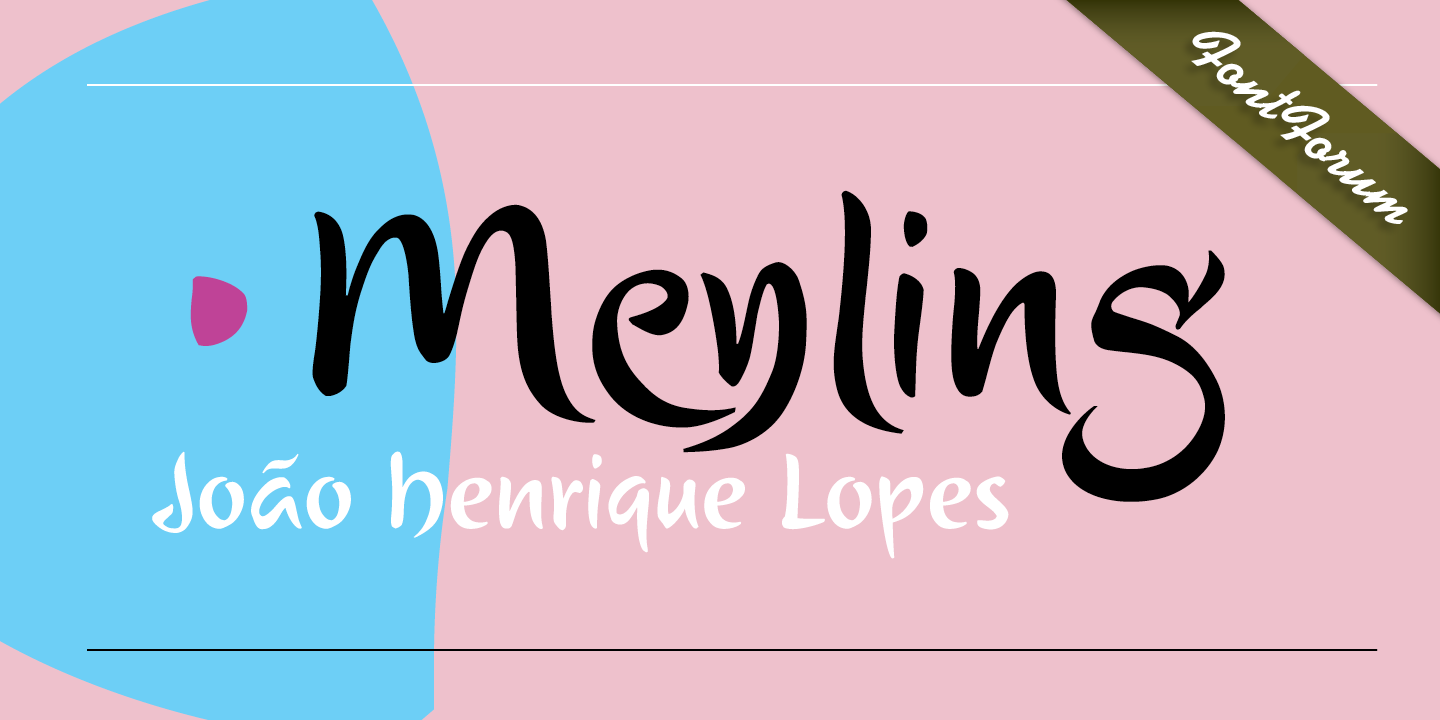
Meyling Font is perfect for a wide range of design applications including delicate branding projects, feminine beauty salon signage, romantic wedding invitations, boutique fashion labels, artisanal jewelry packaging, elegant greeting cards, sophisticated lifestyle magazines, refined cosmetic branding, graceful calligraphy workshops, and enchanting editorial layouts.
What makes Meyling Font exciting is its ethereal beauty and graceful femininity that perfectly captures the delicate charm and sophisticated elegance of contemporary feminine design sensibilities. This enchanting typeface brings a sense of gentle sophistication and artistic refinement to any project with its beautifully flowing letterforms that showcase organic curves and harmonious proportions. The font's soft character shapes and lyrical flow create an atmosphere of romantic elegance and feminine grace that resonates with audiences seeking beauty, authenticity, and personal expression, making it an ideal choice for brands emphasizing femininity, artisanal quality, and aesthetic sophistication.
The Meyling Font family includes multiple weights and styles designed to accommodate various elegant and feminine design requirements. The collection typically features regular, bold, light, and decorative variations, each maintaining the font's signature graceful aesthetic while providing comprehensive design flexibility. Additional ornamental flourishes and feminine ornaments enhance the family's creative potential for beauty-focused design projects.
Professional designers appreciate Meyling Font's exceptional grace and comprehensive character support. The font includes extensive punctuation marks, numerical figures, decorative alternates, and international language capabilities, making it perfect for global beauty brands and international feminine lifestyle projects. Its elegantly optimized spacing and kerning ensure professional results in branding, packaging, and promotional applications.
The increasing popularity of Meyling Font in the design community reflects its ability to enhance brand femininity and create memorable visual experiences that celebrate contemporary feminine elegance and artistic expression. Whether used for beauty industry branding, fashion boutique materials, or romantic creative projects, this font delivers exceptional results that honor the sophisticated beauty of modern feminine design.